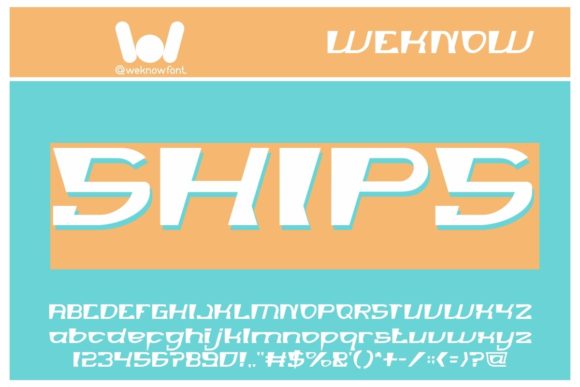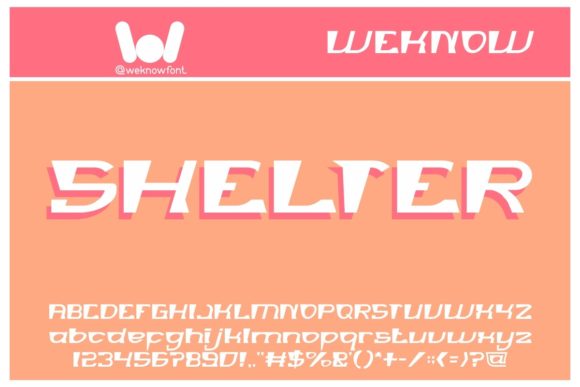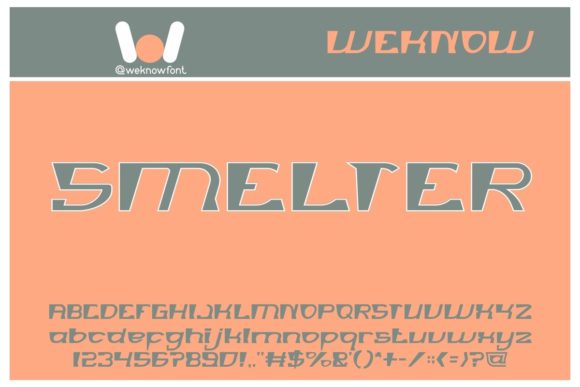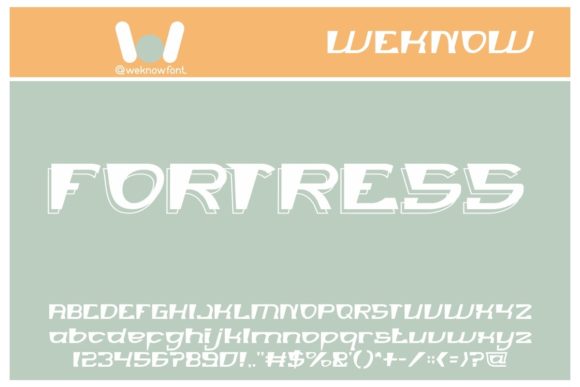
Mercury Font – Free Download
Introduction to Mercury Font
Mercury is a fancy display font suitable for logo, logotype, headline font, corporate identity, brand identity, apparel industry, poster, music, movie, game, magazine, book, comic, cartoon, YouTube, Instagram, website, or any of your creative design projects.
Key Features of Mercury Font
Why Choose Mercury Font?